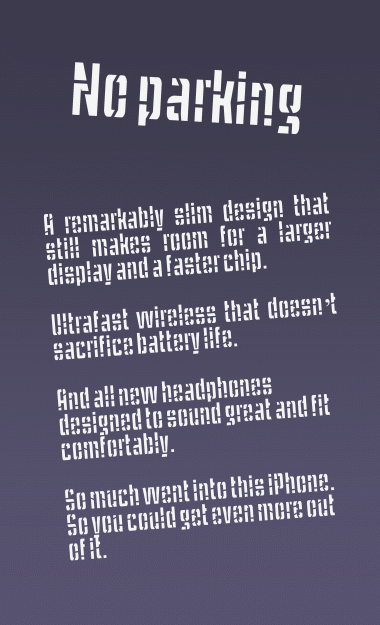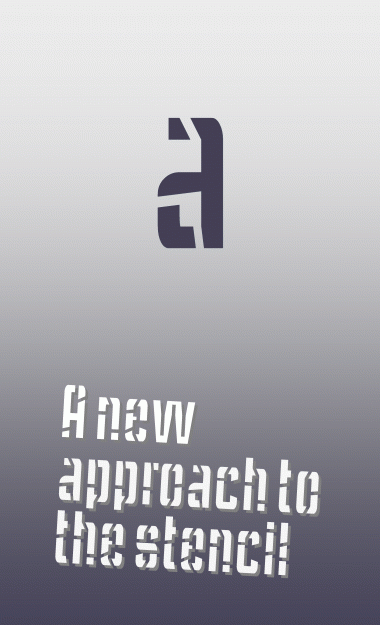
demonics
dm/Stencilcomp 02
Shattering.
This almost looks like camouflage - great stuff! 10/10
You've set the bar high already.
Nice one, in your text sample the bridges become like veins in a slab of marble. 10/10
Letters sliced and diced. Excellent concept. Some glyphs need refinement. 10/10
The M,V,v,w,y looks different than the rest of the set.
Yes. I'm aware of that. Do you have any suggestions, as I can't figure out how to get 1/2 a brick of space into 1:8, 1:6 angles? Thanks for your feedback :-)
This is another point of view , and I like it.